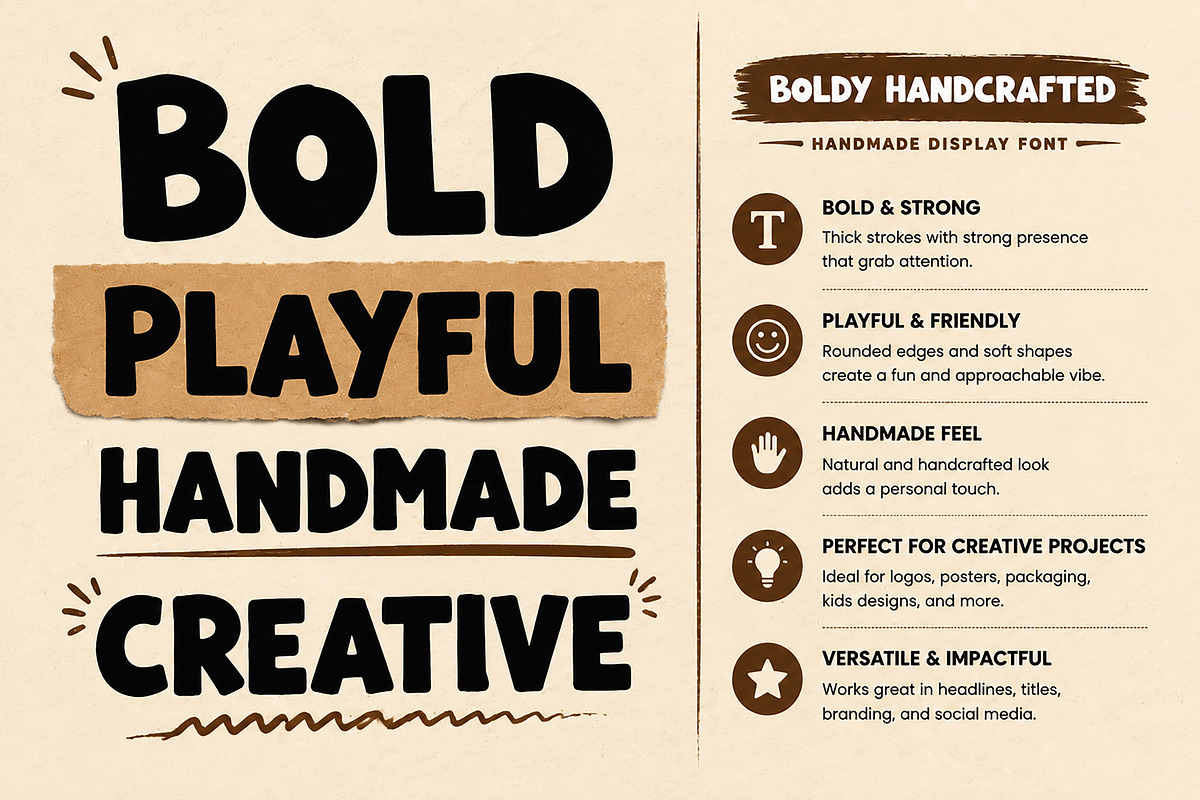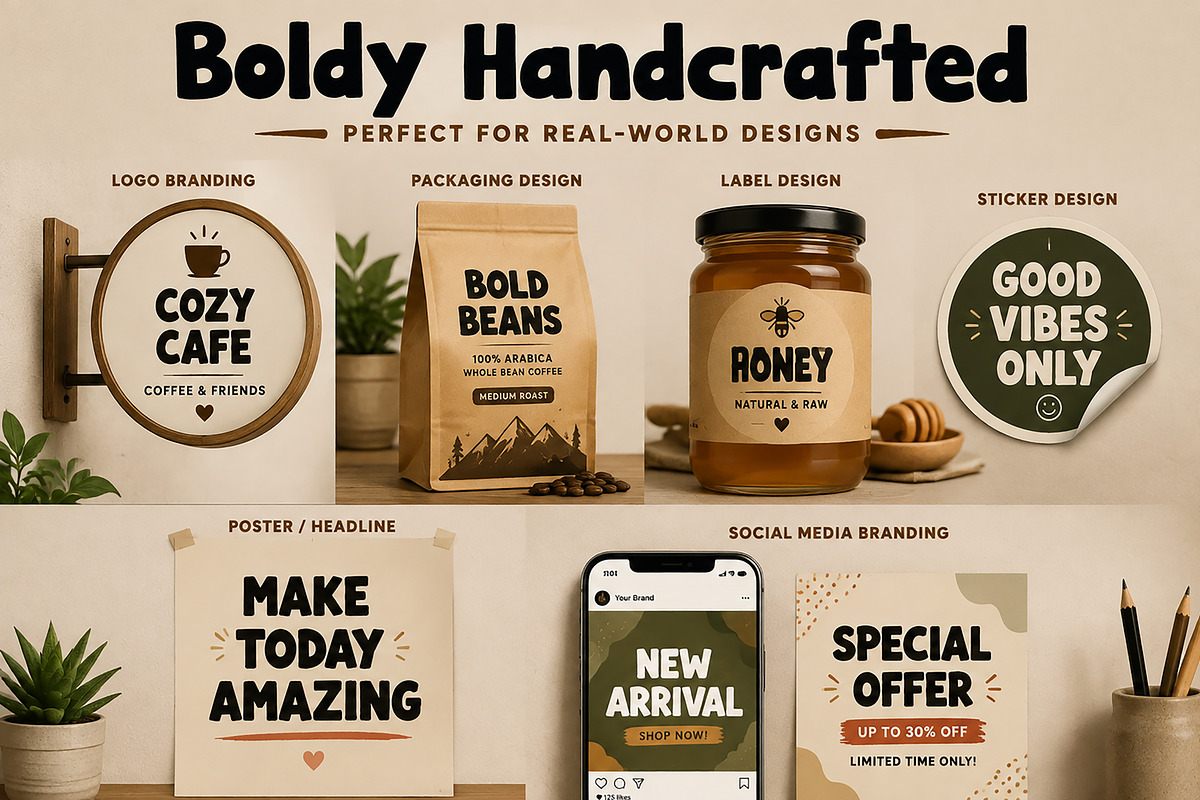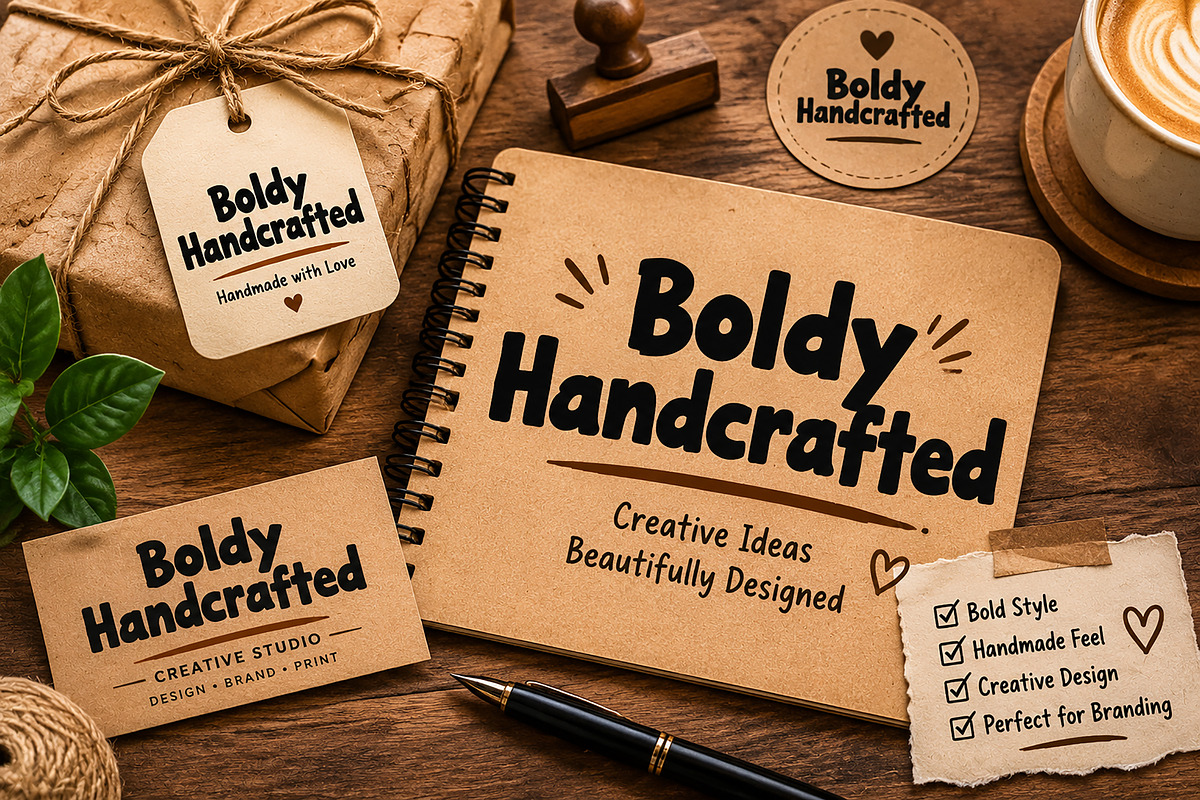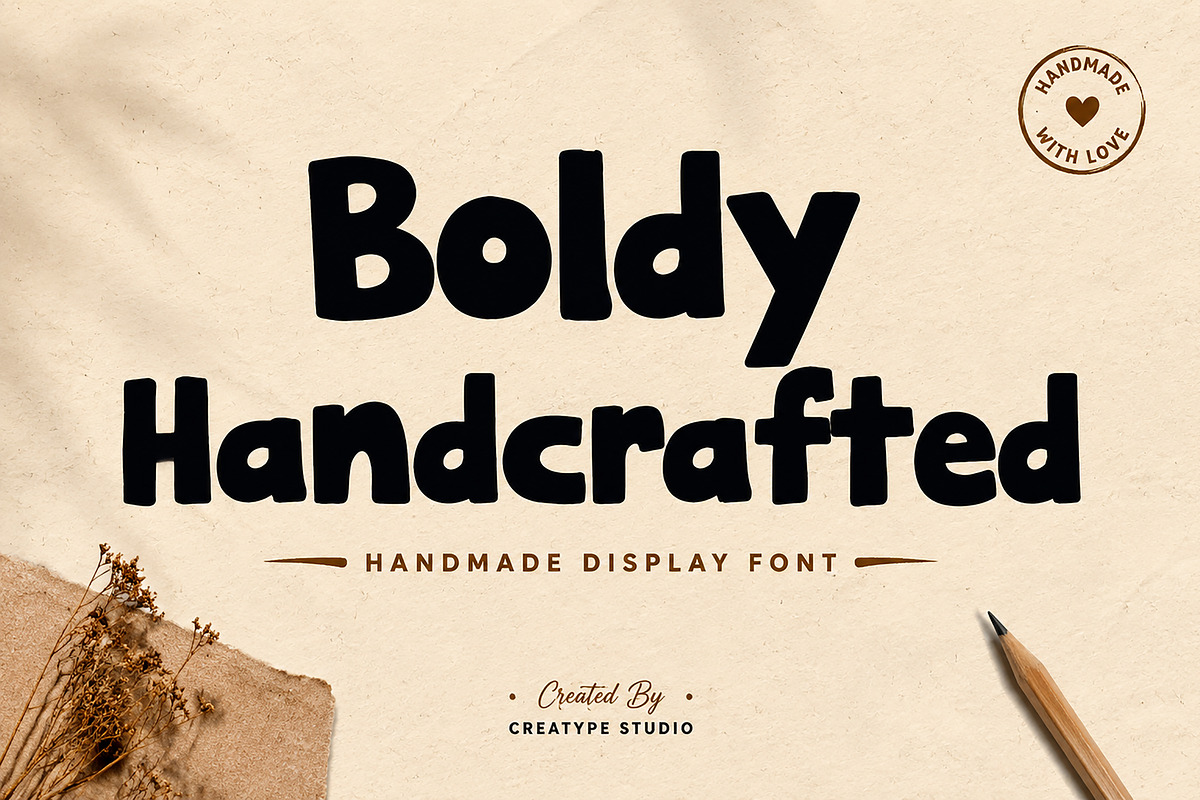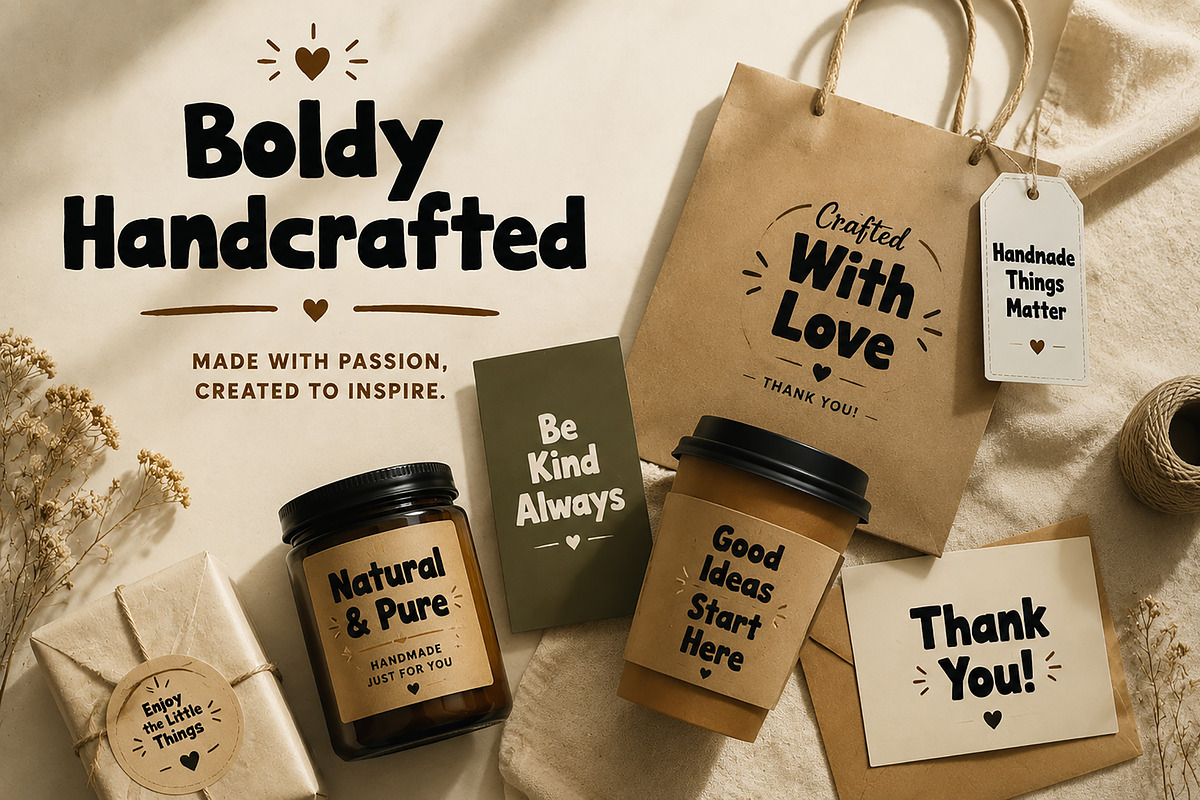
Boldy Handcrafted -Boldy Handcrafted
Boldy Handcrafted is a bold and playful handmade display font designed to bring a creative, friendly, and handcrafted touch to your designs.
With its thick strokes, rounded edges, and unique handmade character, this font is perfect for projects that need a strong visual impact while maintaining a warm and approachable feeling.
Designed for modern creators, this typeface works beautifully for branding, logos, packaging, labels, posters, social media graphics, headlines, stickers, invitations, and many other creative projects.
Whether you are creating a handmade brand identity, product packaging, kids’ designs, craft projects, or eye-catching promotional materials, Boldy Handcrafted adds personality and charm to every design.
✔ Bold handcrafted display style
✔ Thick and rounded letterforms
✔ Fun and playful appearance
✔ Perfect for branding and creative projects
✔ Great readability for headlines and titles
✔ Suitable for both digital and print designs
• Logo Design
• Brand Identity
• Packaging Design
• Product Labels
• Posters & Flyers
• Social Media Graphics
• Stickers
• Invitations
• Merchandise Design
• Creative Typography Projects
Bring your creative ideas to life with Boldy Handcrafted — a fun, bold, and memorable typeface made for designers who love unique handmade styles.